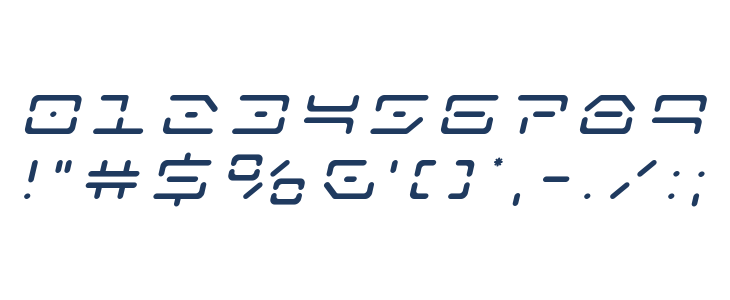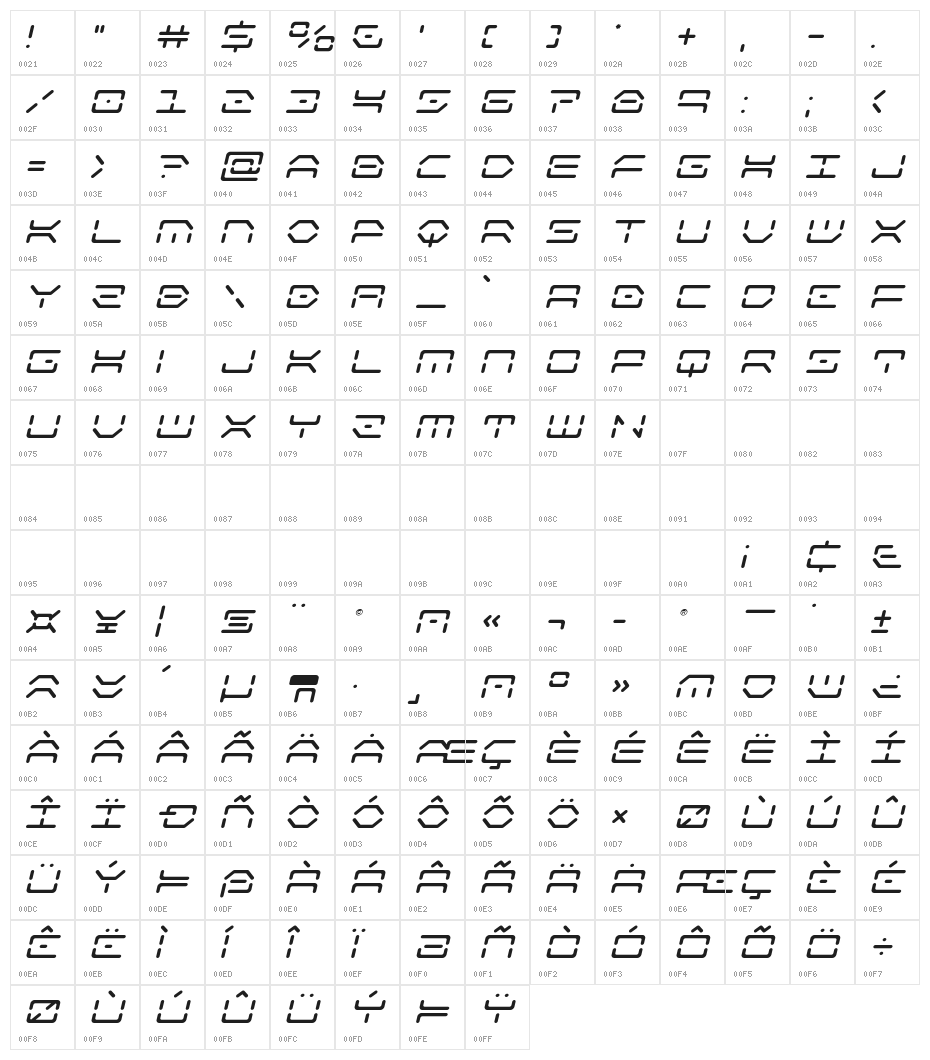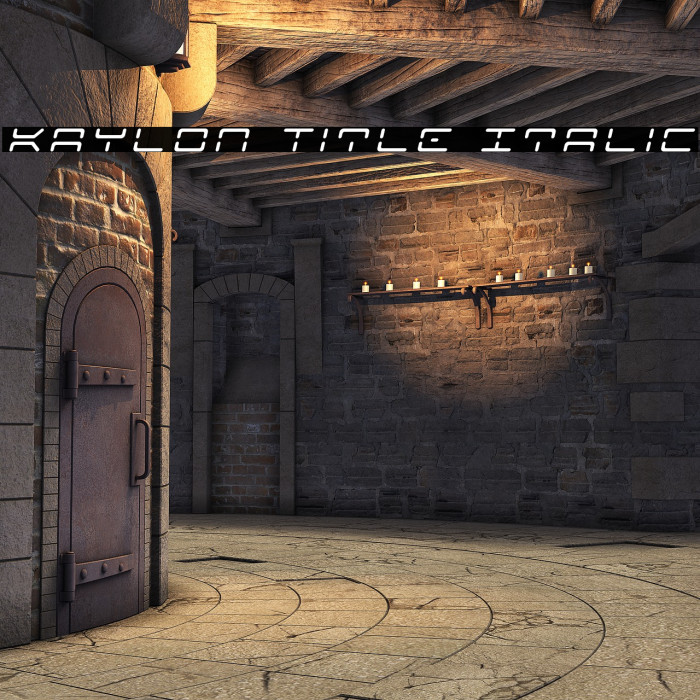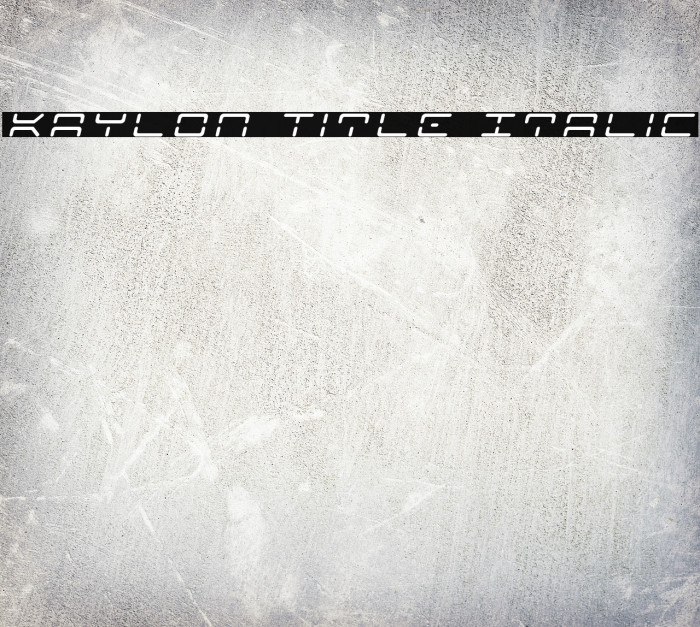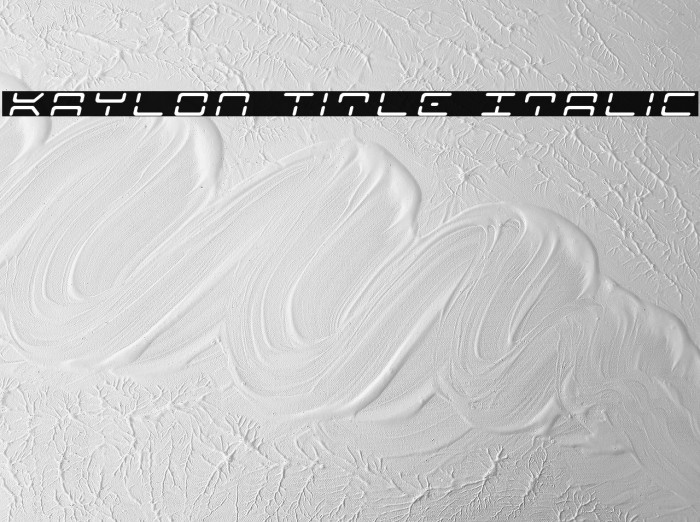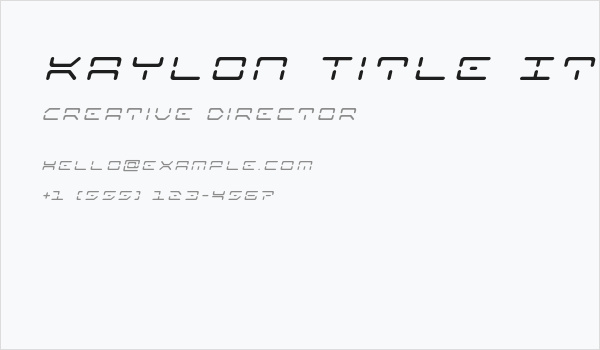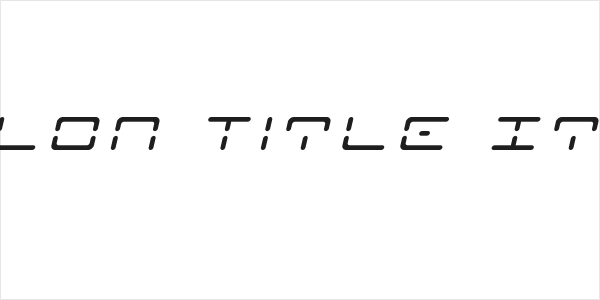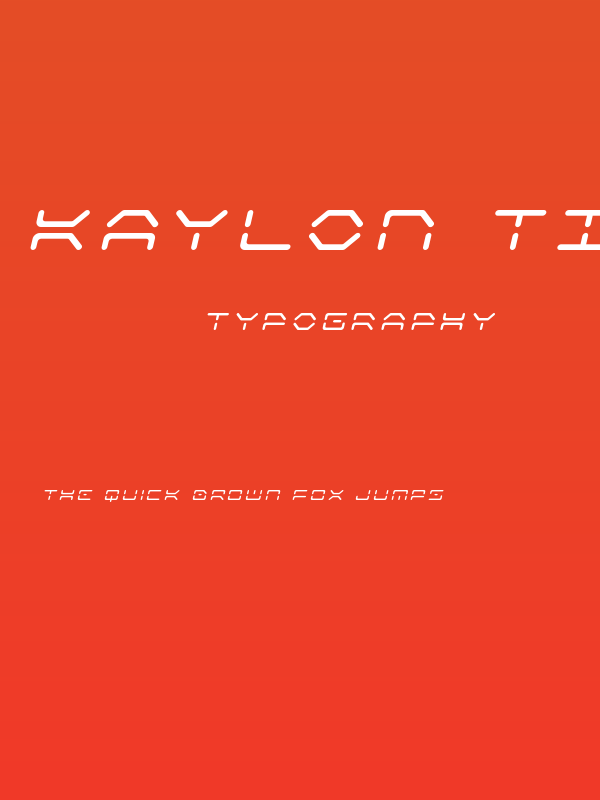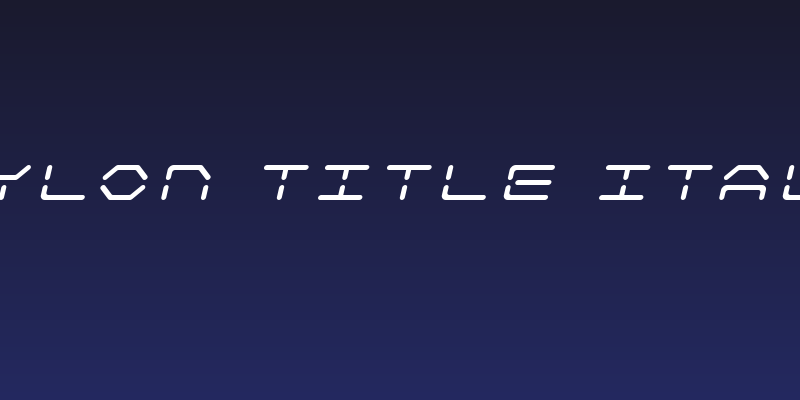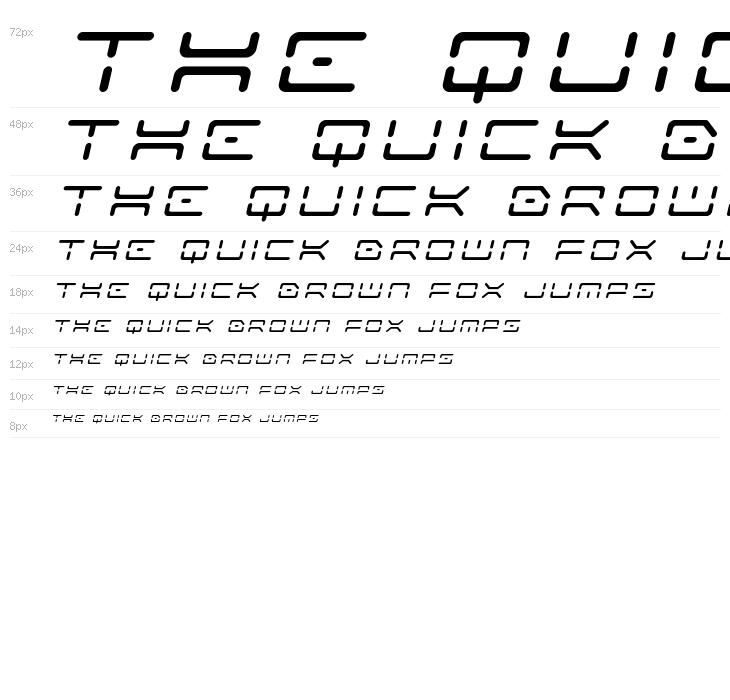
Kaylon Title Italic Font
Kaylon Title Italic Description
This font features a futuristic and geometric design, characterized by its angular and segmented letterforms. Each character is composed of distinct, disconnected strokes that create a digital or mechanical appearance. The uppercase and lowercase letters maintain a consistent style, with sharp edges and a uniform height, giving the font a cohesive and modern look. The numerals and special characters follow the same design principles, ensuring a seamless integration across different text elements. The overall aesthetic is sleek and contemporary, making it suitable for projects that require a tech-savvy or avant-garde feel.